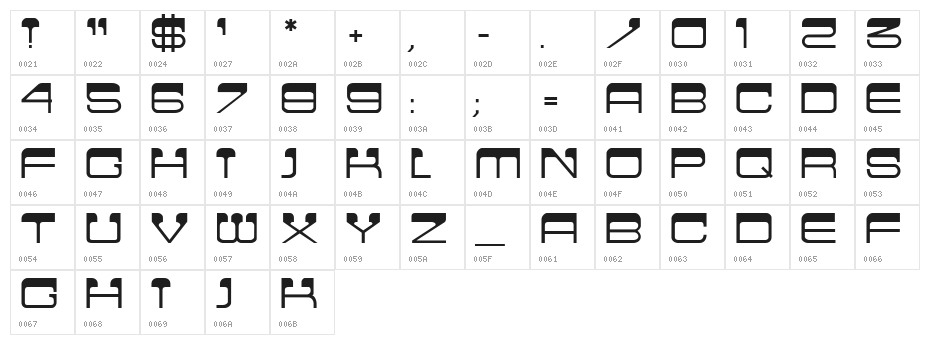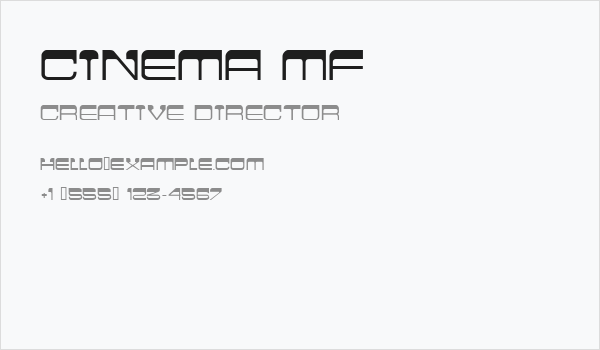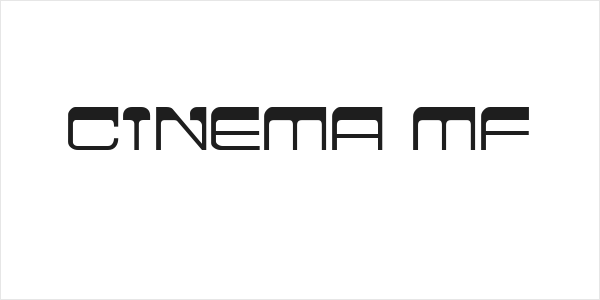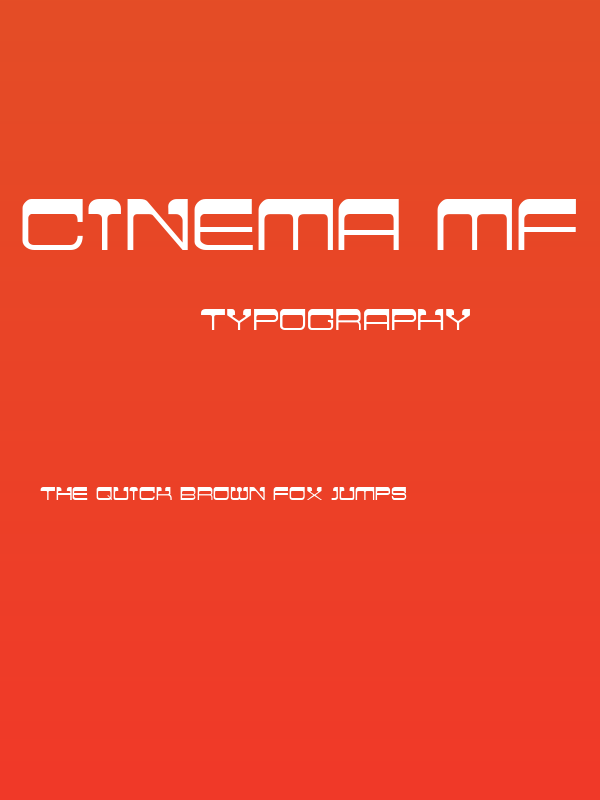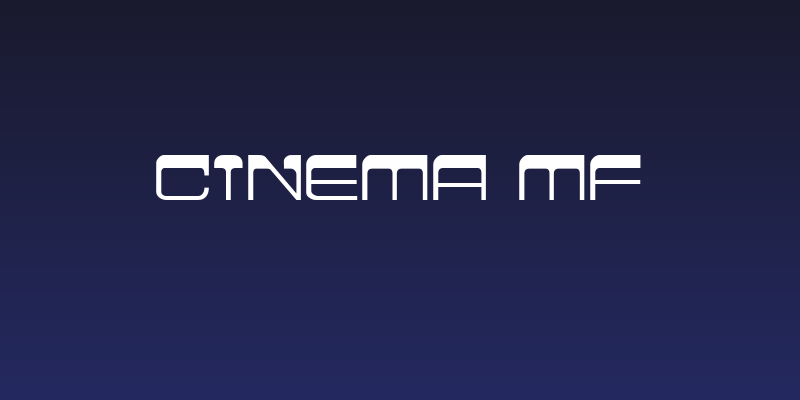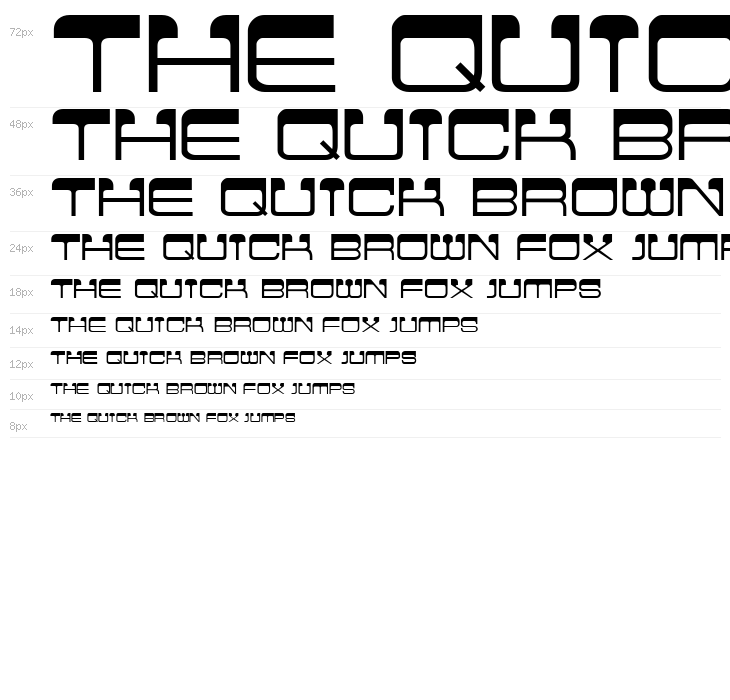
Cinema MF Font
Cinema MF Description
This font features a futuristic and geometric design, characterized by its bold and angular letterforms. The uppercase and lowercase letters share a uniform style, with consistent stroke widths and sharp edges. The numbers and special characters maintain the same aesthetic, contributing to a cohesive look. The font's unique style is achieved through its use of negative space and distinct cutouts within the characters, giving it a modern and tech-inspired appearance. It is well-suited for projects that require a strong visual impact and a contemporary feel.